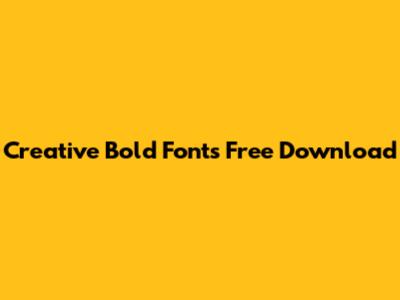
Download Creative Bold Fonts For Free
Hey guys! Are you on the hunt for some creative bold fonts to spice up your projects? Look no further! Finding the perfect font can be a game-changer, whether you're designing a logo, crafting eye-catching posters, or just trying to make your website pop. In this article, we'll dive into the world of bold fonts, where to find them for free, and how to use them effectively. Let's get started!
Why Use Bold Fonts?
Before we jump into the free downloads, let's talk about why bold fonts are so awesome. Bold fonts grab attention. They create visual hierarchy, emphasizing important elements in your design. Think about it: when you want something to stand out, you make it bigger, brighter, or, you guessed it, bolder! Using bold fonts strategically can guide the viewer's eye and make your message crystal clear. For example, in a poster, you might use a bold font for the headline to instantly capture attention. In a paragraph of text, you could use a bold font to highlight key words or phrases. Bold fonts also convey a sense of confidence and strength. They can make your design feel more assertive and impactful. This is why you often see bold fonts used in branding for companies that want to project a powerful image. However, remember that too much of a good thing can be overwhelming. Overusing bold fonts can make your design feel cluttered and confusing. The key is to use them sparingly and strategically. Consider the overall tone and message of your design when choosing a bold font. Is it meant to be serious and authoritative, or fun and playful? The right bold font can enhance your message, while the wrong one can detract from it. Experiment with different fonts and weights to find the perfect balance for your project. Don't be afraid to mix and match different fonts, but make sure they complement each other. A classic pairing is a bold sans-serif font for headlines and a lighter serif font for body text. Ultimately, the goal is to create a design that is both visually appealing and easy to read. Bold fonts are just one tool in your design arsenal, but they can be a powerful one when used correctly. So go ahead, explore the world of bold fonts and see how they can transform your designs!
Tips for Using Bold Fonts Effectively
Now that you've got your hands on some awesome bold fonts, let's talk strategy. Here are a few tips to make the most of them:
• Less is More: Don't go overboard! Using too many bold fonts can make your design look cluttered and overwhelming. Use them sparingly to highlight key elements.
• Consider Contrast: Make sure your bold font contrasts well with the surrounding text. This will make it stand out and improve readability. Experiment with different font weights and sizes to find the perfect balance.
• Choose the Right Font: Not all bold fonts are created equal. Some are better suited for headlines, while others are better for body text. Consider the overall tone and message of your design when choosing a font. For example, a heavy, industrial-style bold font might be perfect for a construction company's logo, but it would be out of place on a wedding invitation.
• Pairing is Key: If you're using multiple fonts, make sure they complement each other. A classic pairing is a bold sans-serif font for headlines and a lighter serif font for body text. Use online tools and resources to find font pairings that work well together. Experiment with different combinations until you find one that suits your project.
Examples of Creative Bold Fonts
To give you some inspiration, here are a few examples of creative bold fonts that you can download for free:
• Bebas Neue: A popular sans-serif font that's perfect for headlines and titles.
• Oswald: Another great sans-serif option that's clean, modern, and easy to read.
• Roboto: A versatile sans-serif font that works well in a variety of designs.
• Montserrat: A geometric sans-serif font that's stylish and contemporary.
• Raleway: An elegant sans-serif font that's perfect for adding a touch of sophistication to your designs.